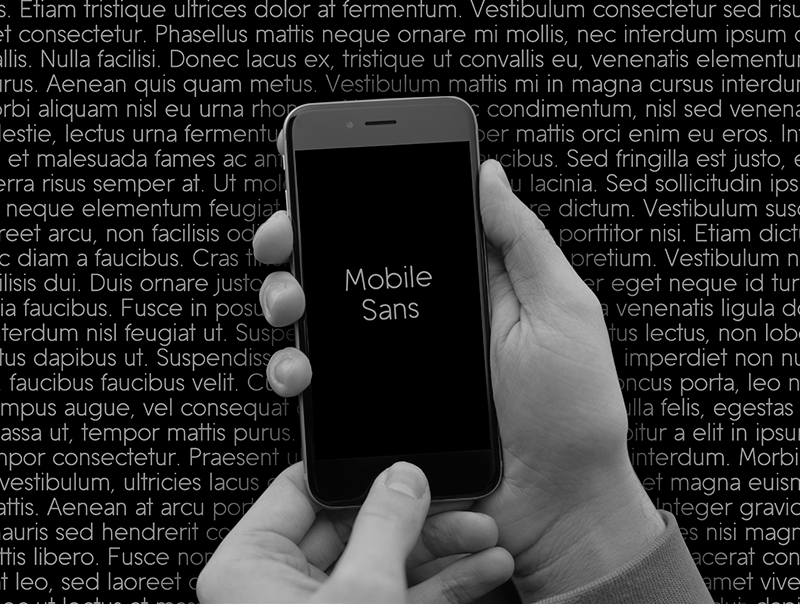
Preview and download Mobile Sans Font. Created by Nelson Fraga in Basic Sans serif styles with 100% Free license.
Font name: | Mobile Sans |
Author: | Nelson Fraga |
Mobile Sans font was created by Nelson Fraga. This font was specially made to facilitate the reading of texts, and make them more enjoyable and comfortable. This font is free for any purpose, both commercial and personal. Enjoy this font and want to show support? Buy me a coffee or two. Paypal: neo-sun@hotmail.com Have fun! |